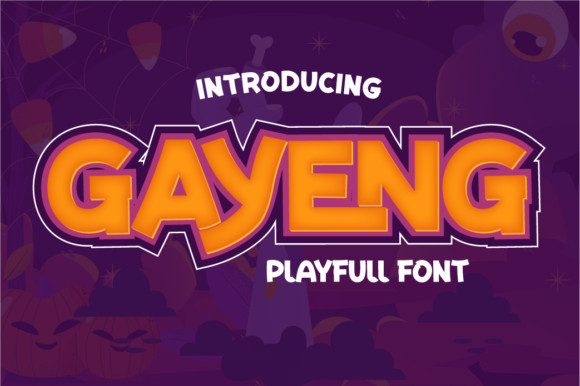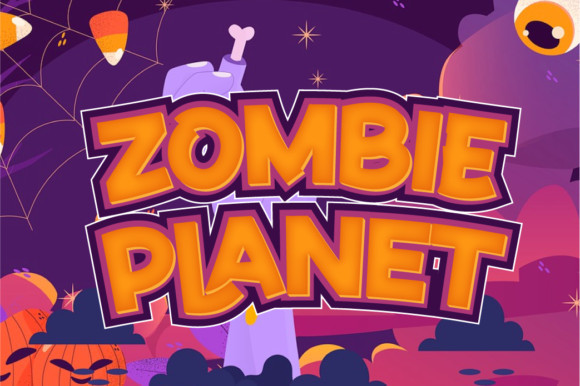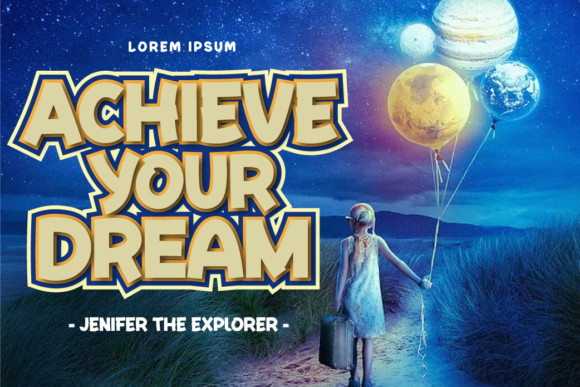
Gayeng Font
Gayeng is a fun and playful display font. Add this chunky lettered font to your children related designs and notice how it makes them come alive!